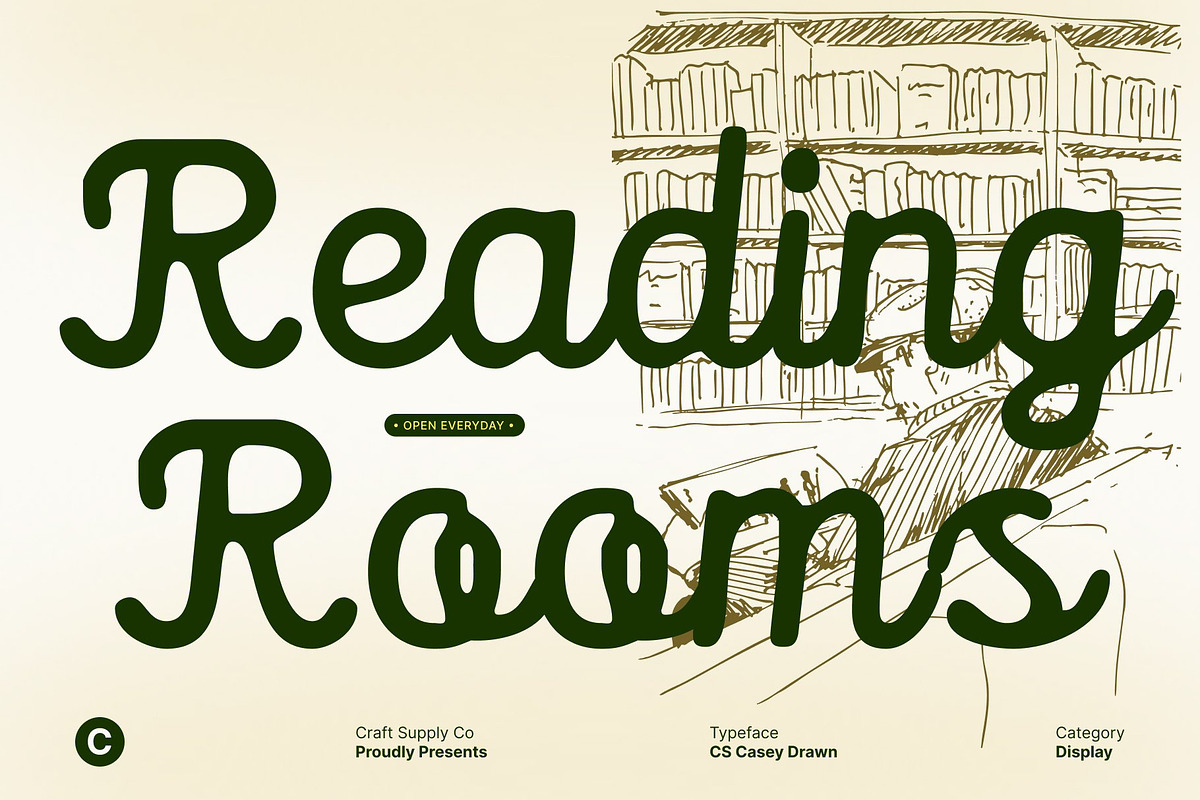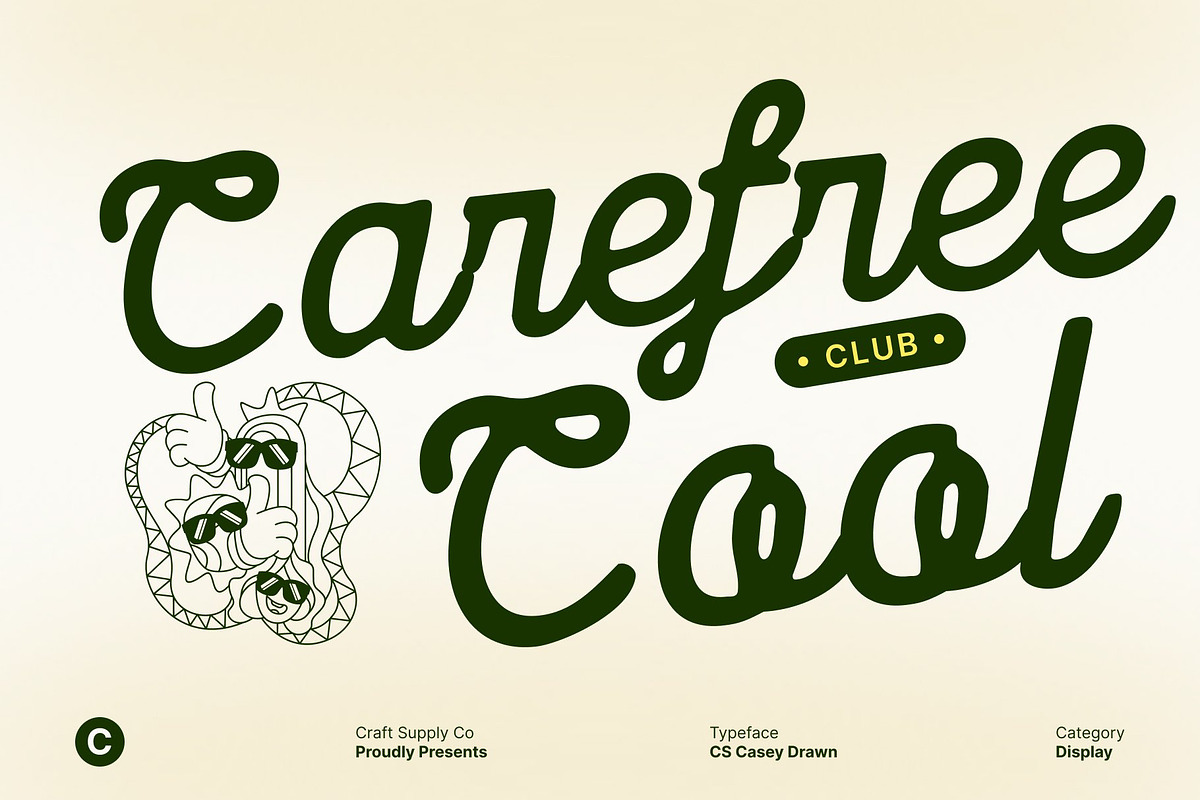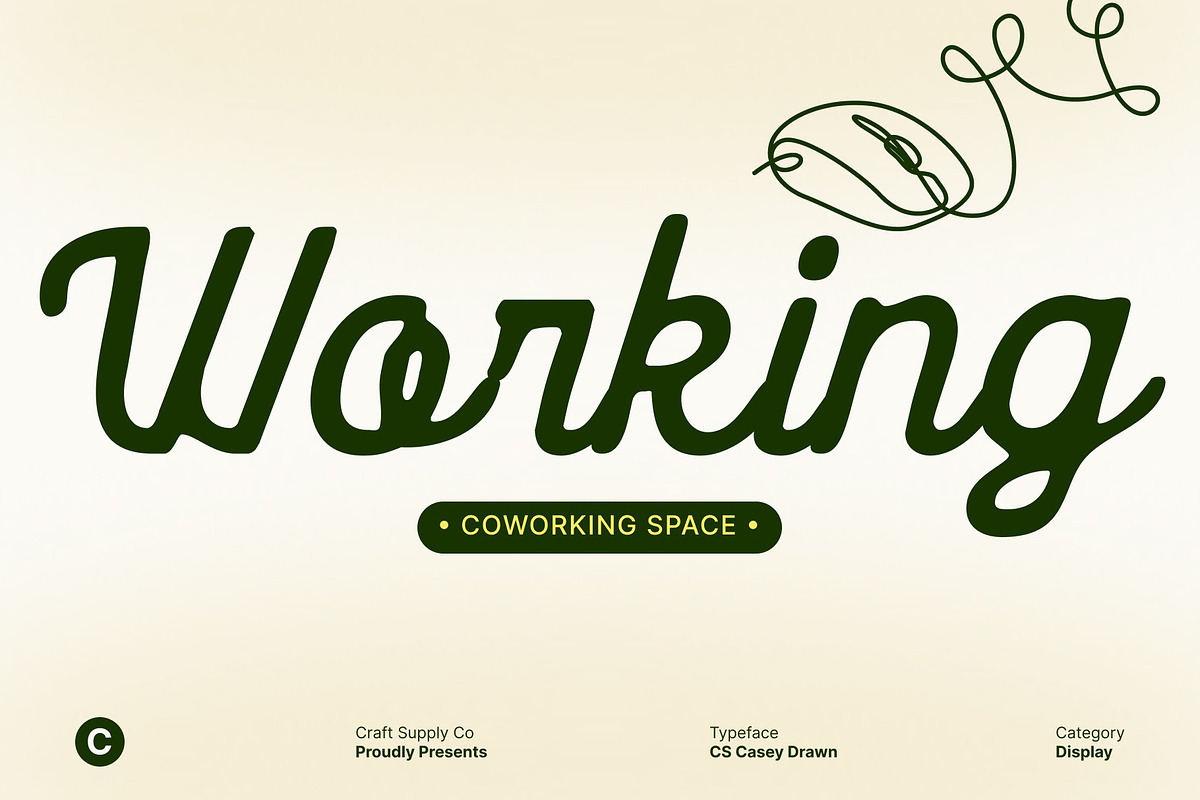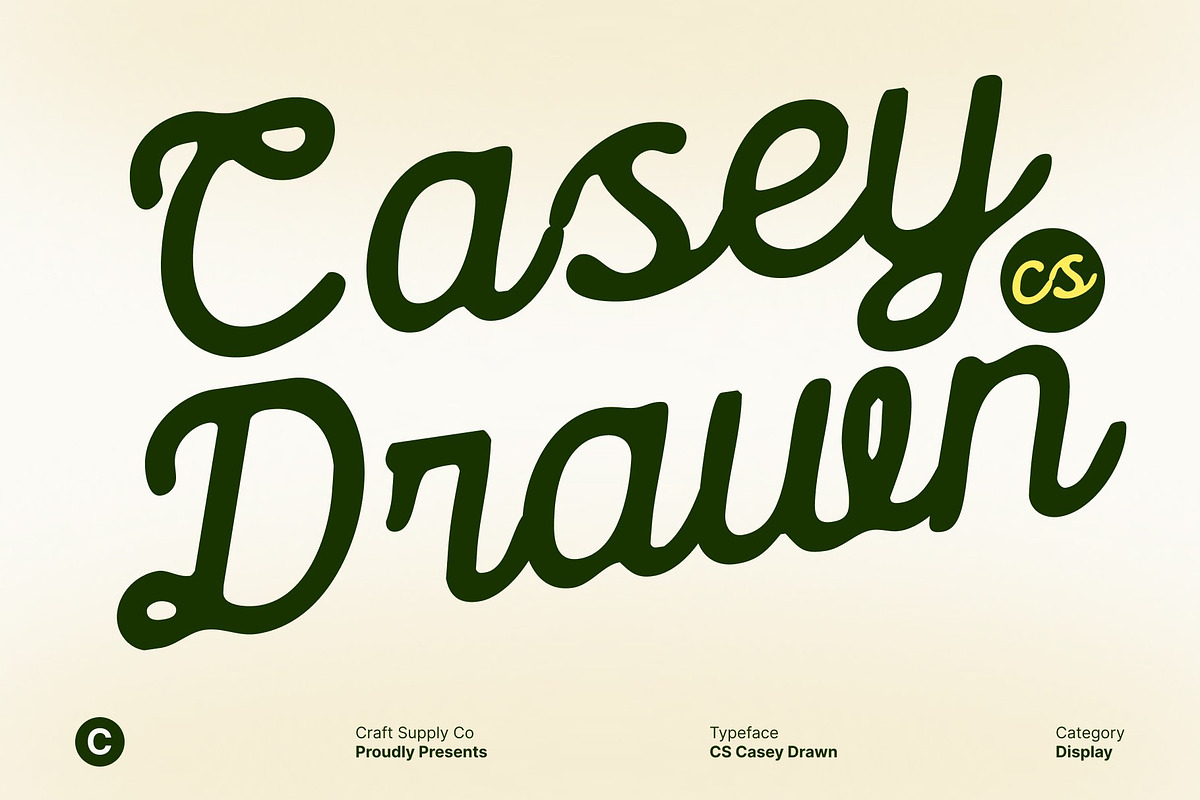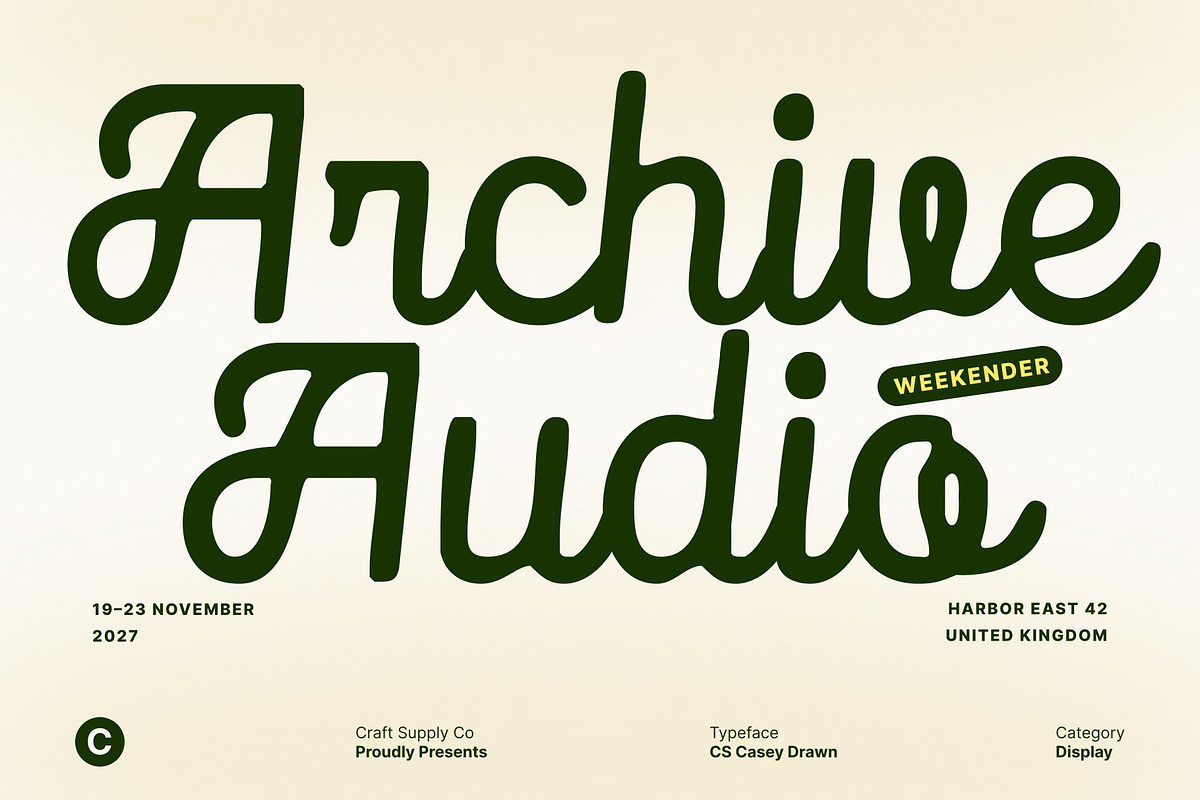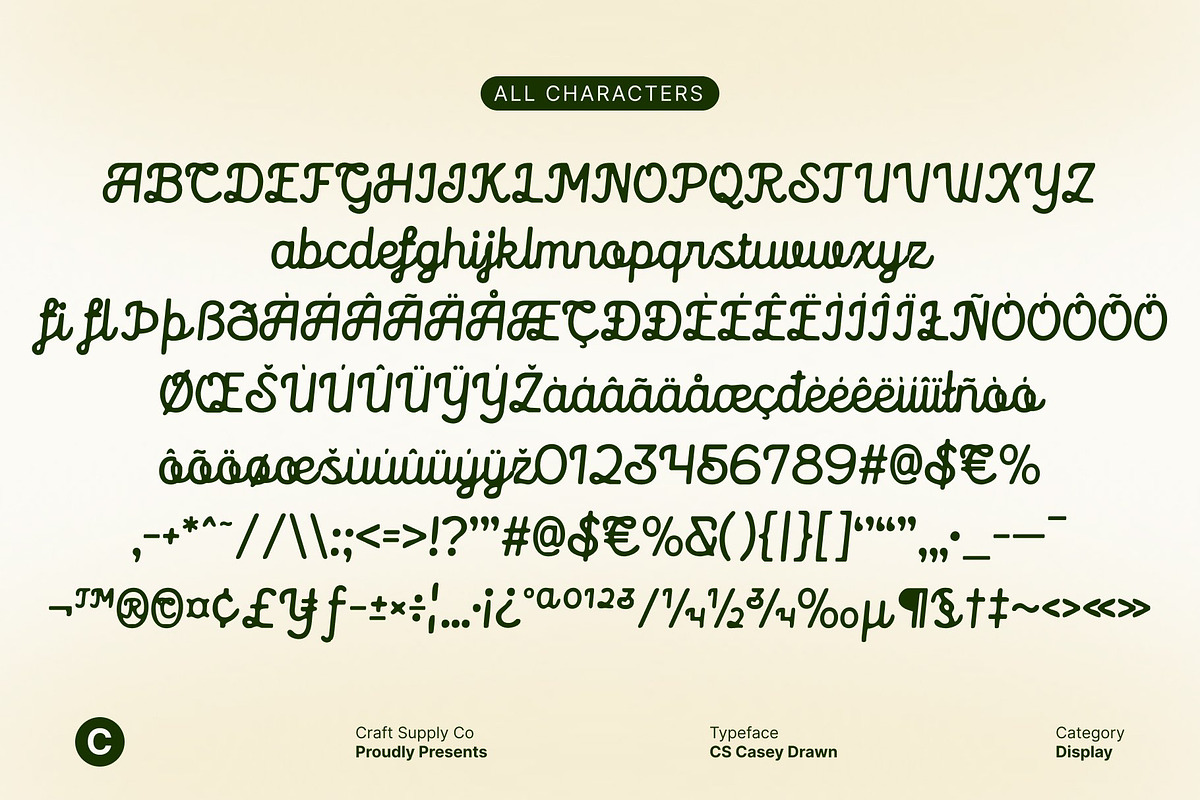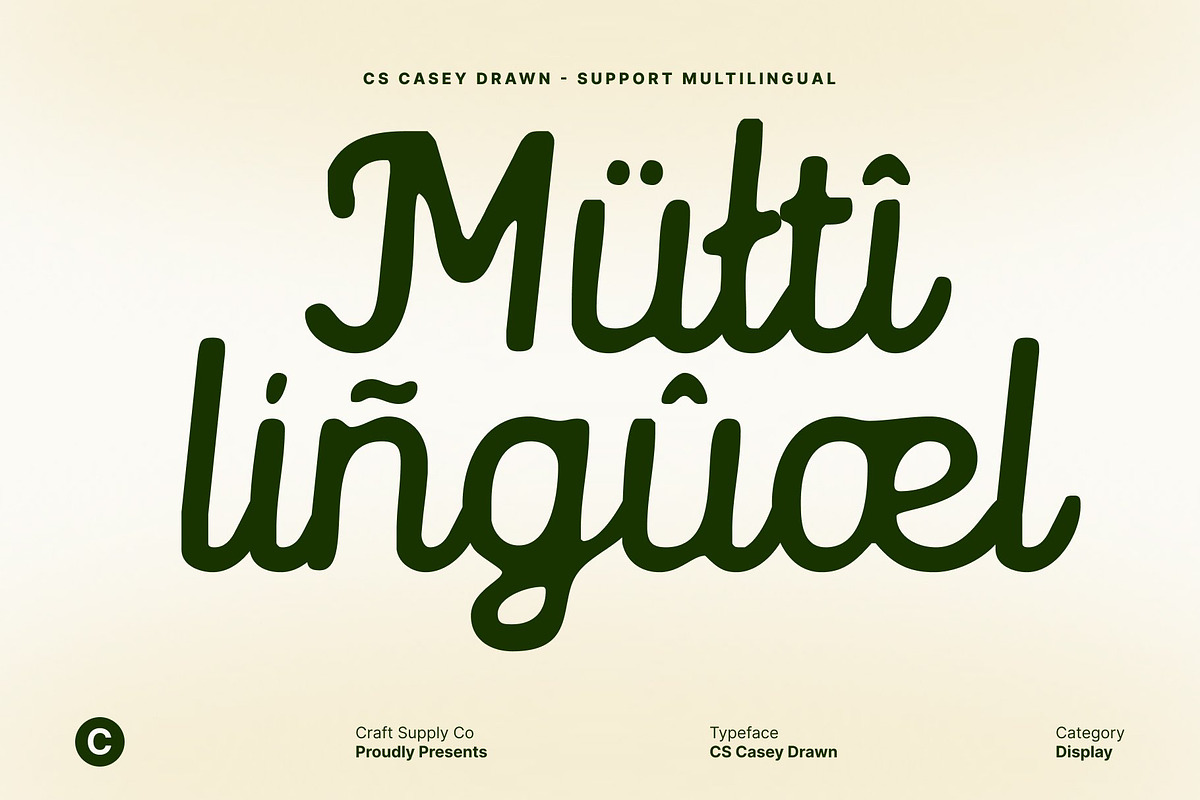
CS Casey Drawn
CS Casey Drawn – Vintage Script Font with Soft Flowing Texture
Timeless Vintage Script Style This is a classic and refined vintage script font that channels timeless design with decorative retro charm. Its flowing letterforms and graceful curves recall traditional hand-lettered scripts often found in old posters and classic signage. The font carries an old-fashioned character that feels warm and familiar, making it ideal for projects that aim to express nostalgia, craftsmanship, and enduring style.
Drawn Effect with Soft, Natural Flow The drawn effect adds a soft, flowing texture that enhances the font’s organic appearance. Subtle variations in stroke and smooth connections between letters create a natural rhythm, giving the typography a handwritten feel that looks gentle and expressive. This artistic texture brings authenticity and warmth, allowing designs to feel personal and thoughtfully crafted.
Decorative Retro Details with Refined Balance This font balances decorative script elements with refined proportions, ensuring readability while maintaining visual charm. Its subtle flourishes and smooth transitions add personality without overwhelming the layout, making it suitable for both headlines and branding elements.
Perfect for Nostalgic Branding and Display Use This font excels in retro posters, bar menus, nostalgic branding, packaging, and editorial highlights. Its soft flowing strokes and vintage spirit help create memorable visual identities that feel authentic and inviting. Whether used in print or digital formats, brings timeless appeal, artistic texture, and classic character to every design.